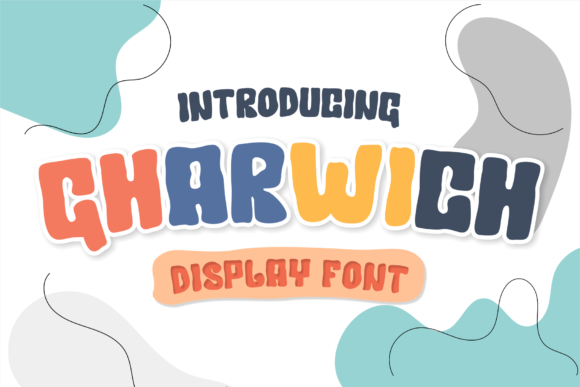
**Unleash Your Design Potential with Gharwich Font: The Spirited Display Typeface That Breathes Life into Your Creation!**
Embark on a typographic adventure like never before with the Gharwich Font, a captivating display font that ignites your imagination. Each character in this audacious font is a bubble-like work of art, waiting to inject a burst of energy and personality into your designs. Unleash the potential of your creativity as you play with the Gharwich Font's bold curves and quirky nature, taking your designs beyond the ordinary.
**A Font That Speaks Your Brand's Unique Voice:**
With its playful spirit, the Gharwich Font is a true attention-grabbing force. Make your packaging designs shout with vibrance, your brand identity roar with confidence, and your marketing materials dance with delight. This font is not just a collection of letters; it's a canvas for your creativity, allowing you to translate your brand's unique voice into a visual masterpiece.
**Versatility Like No Other:**
The Gharwich Font knows no boundaries. Whether you're designing posters, t-shirt prints, website graphics, or even social media posts, this font is your secret weapon. Its ability to transform the ordinary into extraordinary knows no end. Dive into a world of design possibilities, knowing that the Gharwich Font will elevate your every creation.
**A Typographic Masterpiece That Ignites Emotion:**
With each stroke and curve, the Gharwich Font evokes an emotional response. Its playful nature disarms, its boldness captivates, and its quirky charm delights. Your designs will no longer just exist; they'll come alive, captivating audiences and leaving a lasting impression.
**The Perfect Font for Your Creative Arsenal:**
The Gharwich Font is not just another font; it's a catalyst for your creativity. A font that will inspire you to think beyond the ordinary, to create designs that turn heads, touch hearts, and make a statement. Add the Gharwich Font to your creative arsenal and witness the transformation in your designs.